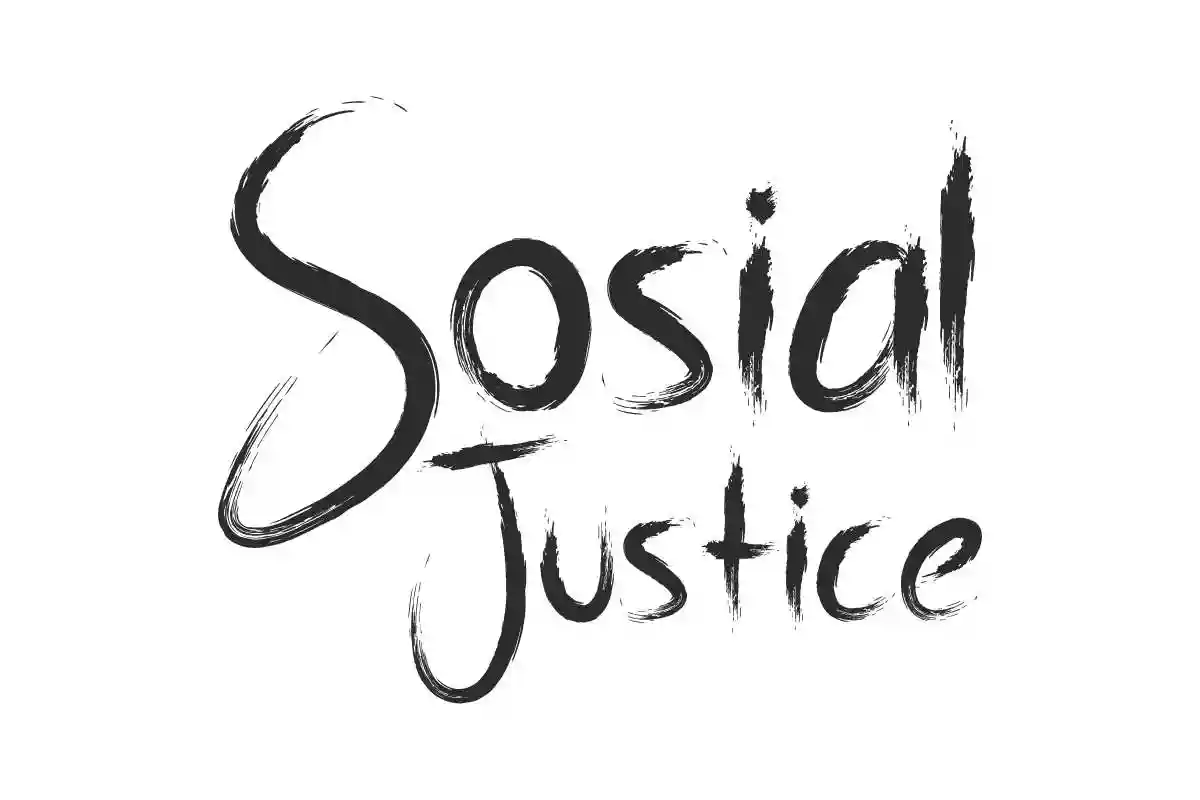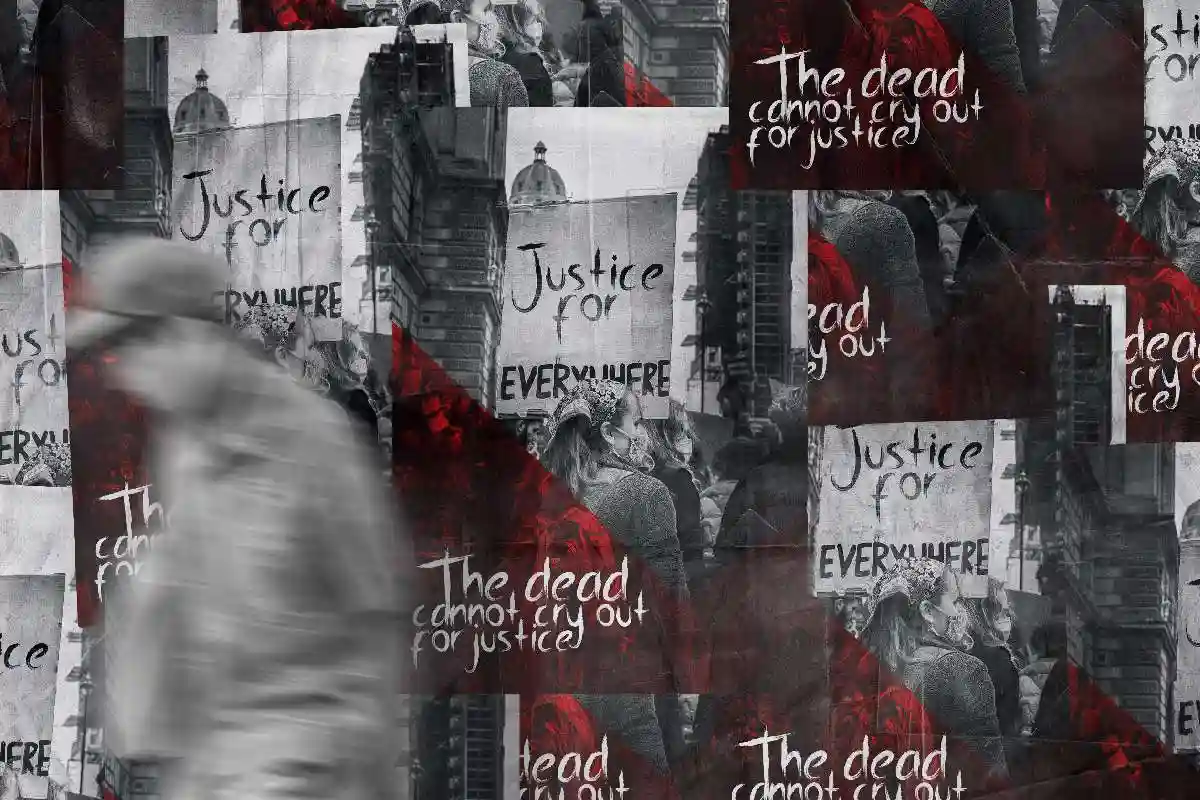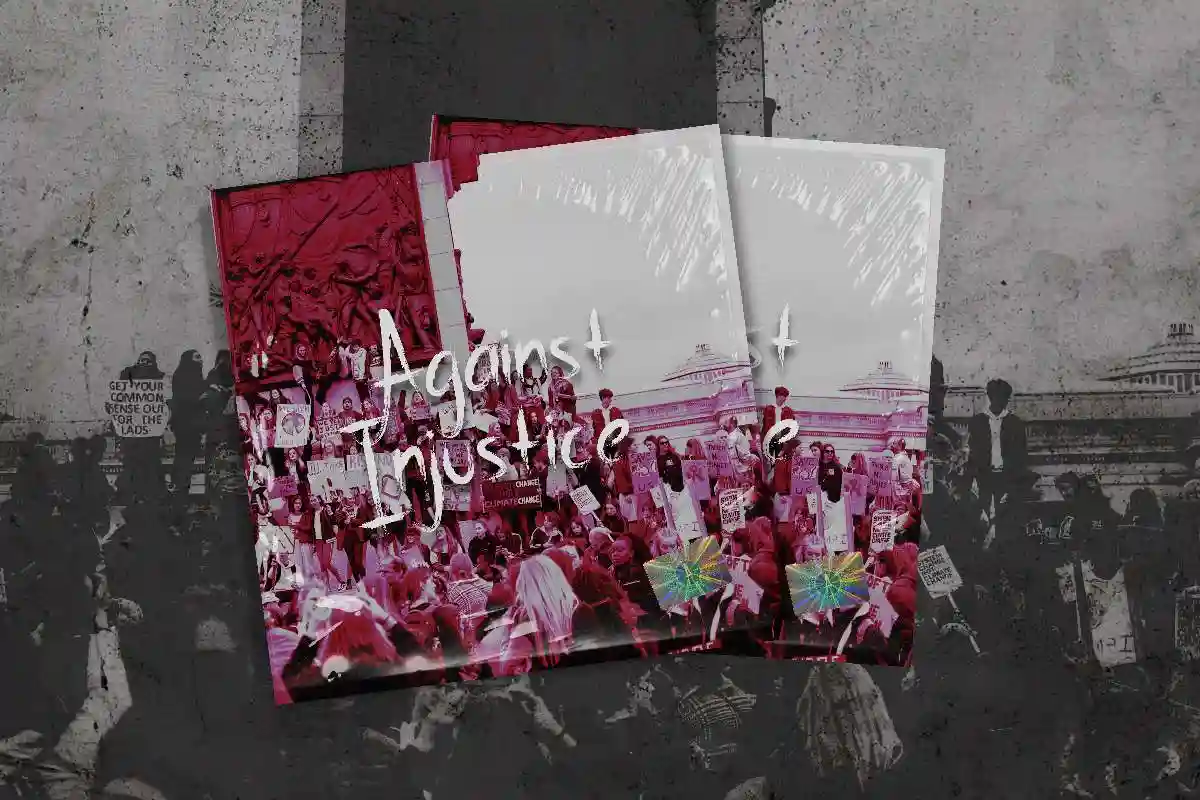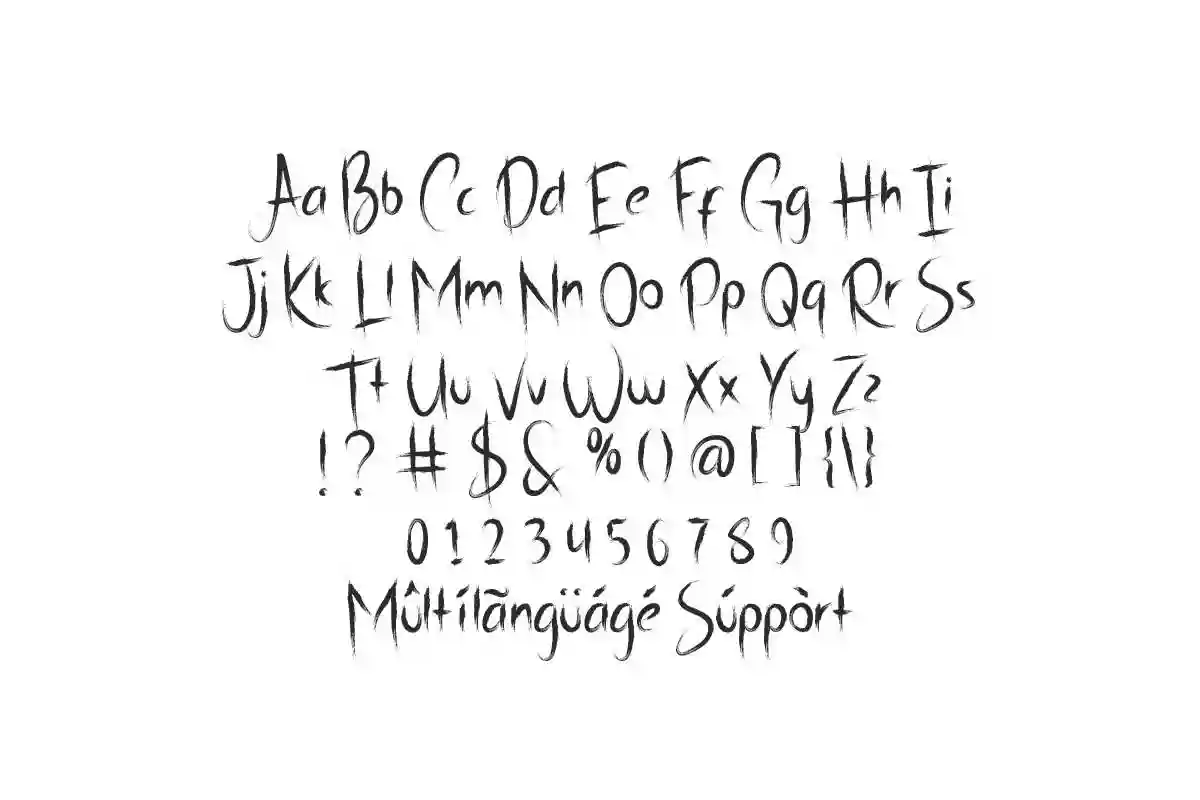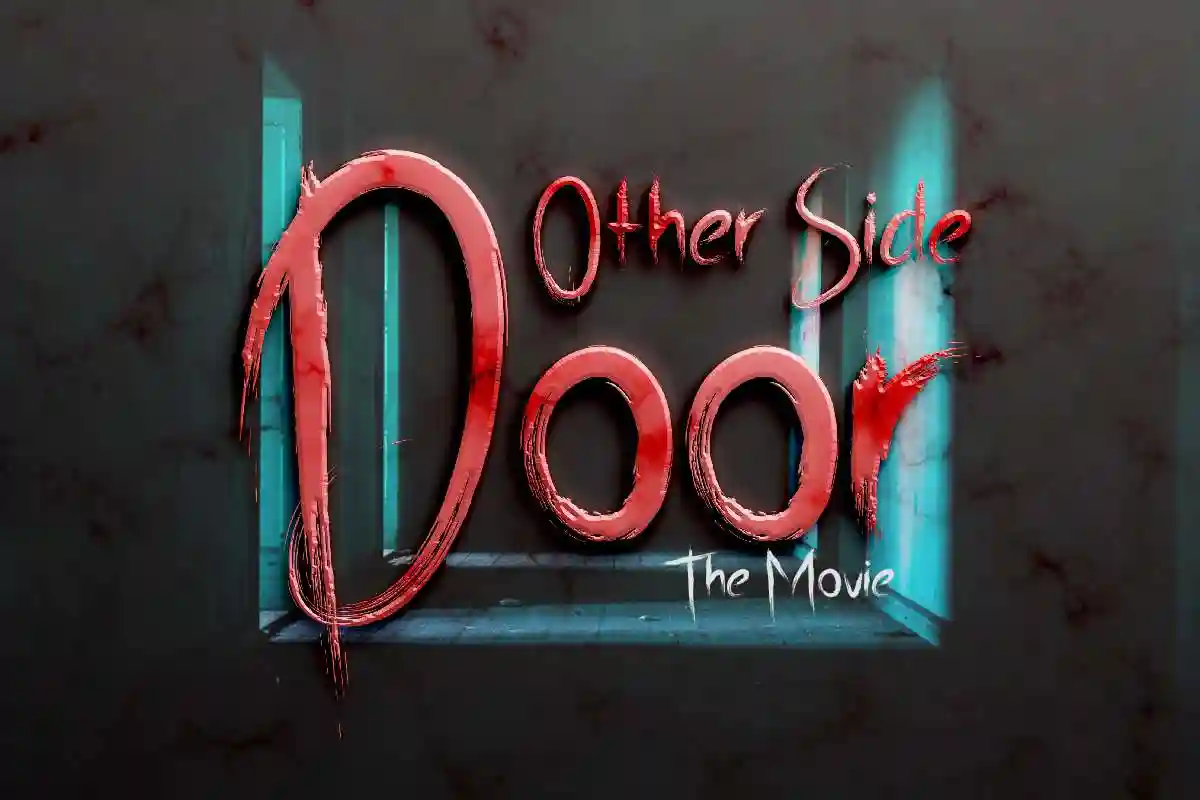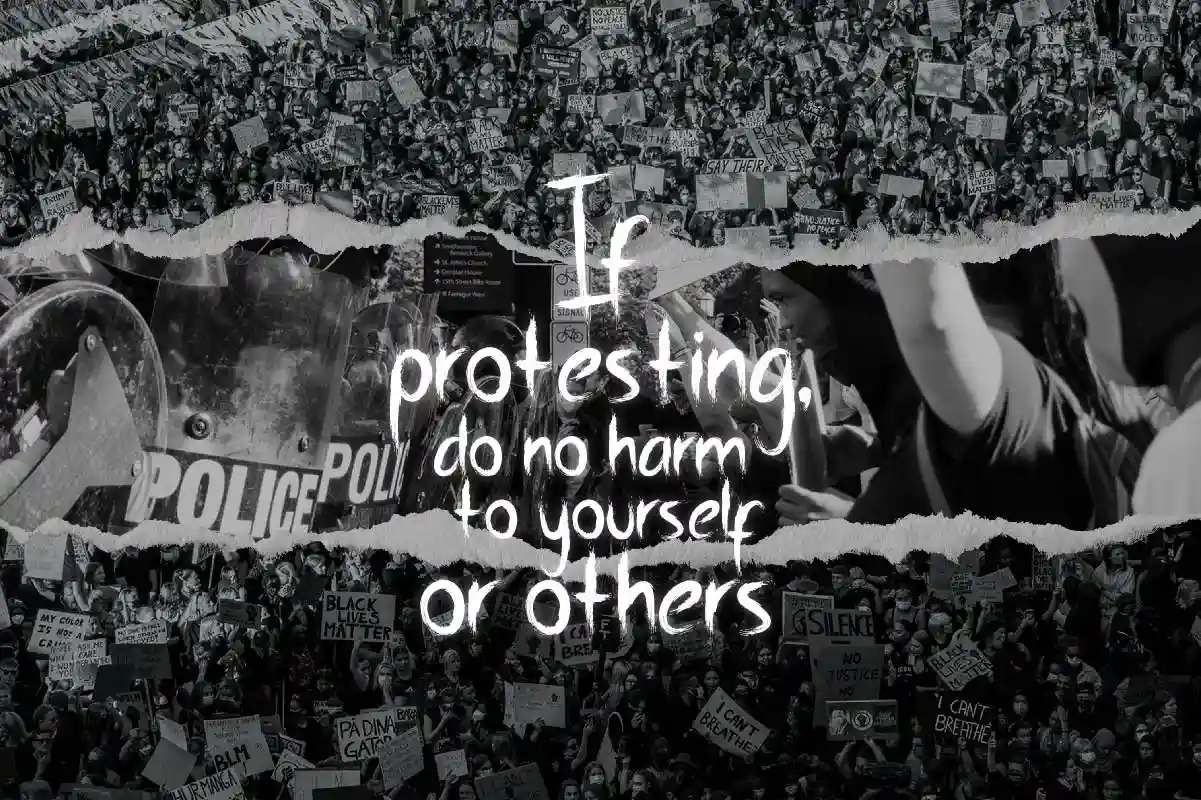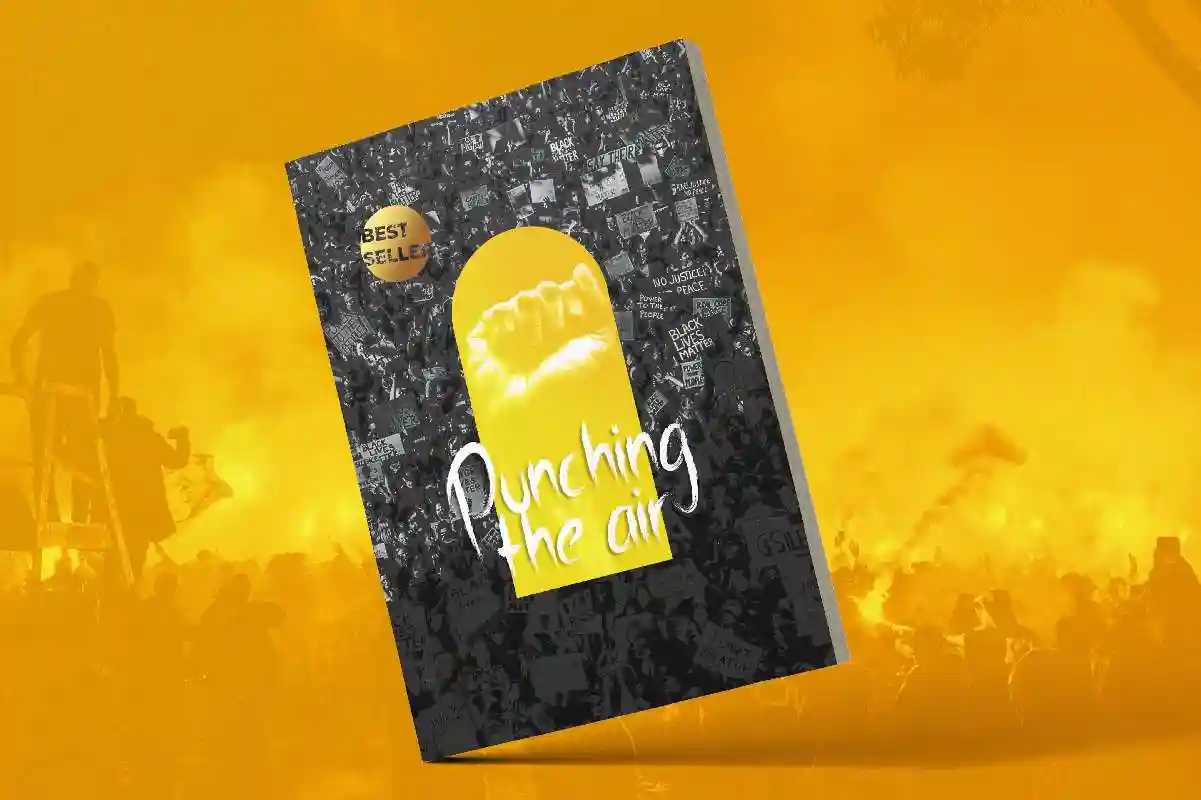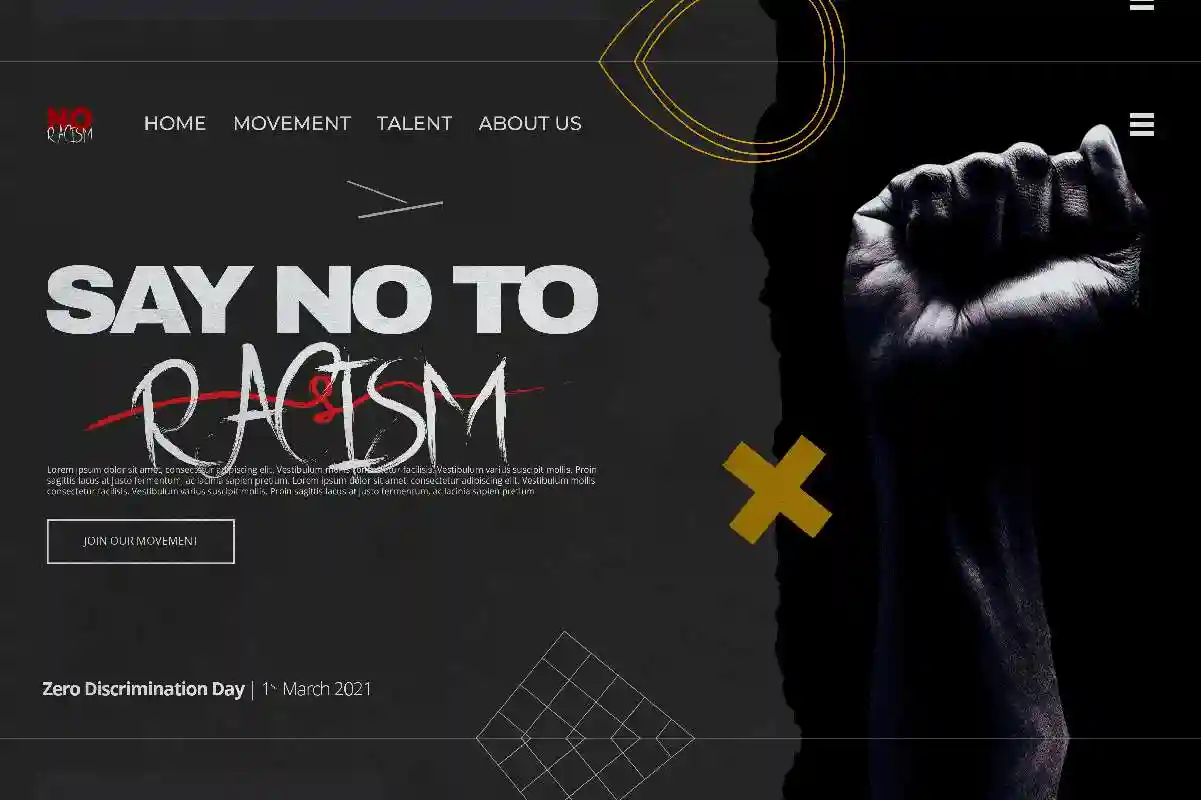
Sosial Justice Font is a rough brush font with scary mysterious style by NihStudio, made in 2021. Great for headline, book cover, games logo, poster, etc.
Crafted with precision, this font offers exceptional readability while keeping its rebellious aesthetic intact. Available in both uppercase and lowercase with diverse punctuation, it’s fully versatile for print, digital, and merchandise use.
Sosial Justice Font is a display font with a horror brush. Originally designed by NihStudio. On the package you will get :